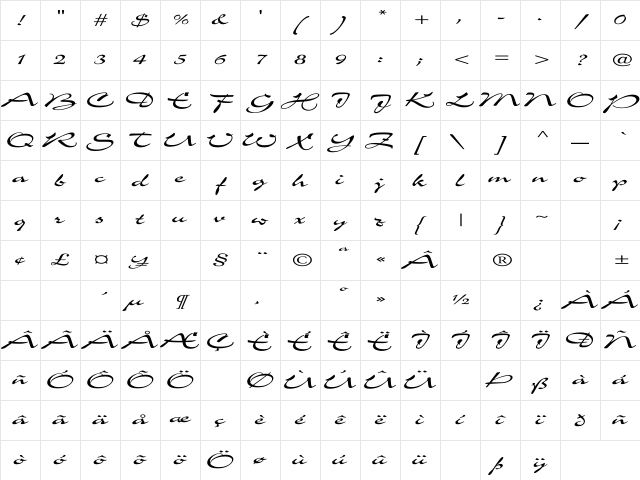
Charme Ex Regular
Design Context for Charme Ex
Charme Ex is a composed and adaptable typeface that performs quietly and consistently across a wide range of design contexts.